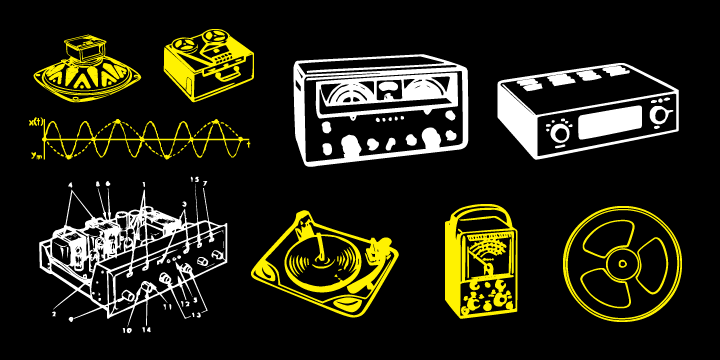
54 audio dingbats scoured from pages of vintage aural enthusiasts magazines and fontified just for you… from tubes to amps, turntables, headphones and more.